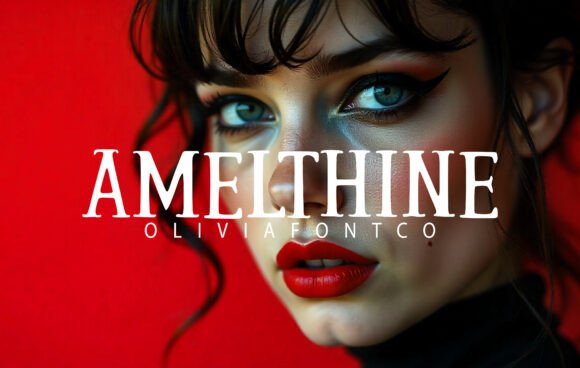
The Amelthine Font: Elevate Your Designs with Elegance and Sophistication
I’ll never forget the time I was working on a luxury branding project for a high-end fashion client. I had spent hours pouring over design concepts, but something was missing – the perfect font. That’s when I stumbled upon Amelthine, a sophisticated and confident serif typeface that instantly elevated my design game. In this article, I’ll share my experience with Amelthine, its features, and how to make the most of this stunning font in your designs.
What Makes Amelthine Special?
Amelthine strikes the perfect balance between classic elegance and modern allure. Its high contrast between thick and thin strokes, sharp serifs, and refined details make it perfect for high-end branding, fashion magazine layouts, editorial design, and striking headlines that demand attention.
An Honest Review of Amelthine
- ✨ Elegant and sophisticated design: Amelthine exudes luxury and refinement, making it perfect for high-end projects.
- ✅ High contrast and sharp serifs: The font’s high contrast between thick and thin strokes, combined with its sharp serifs, creates a visually stunning effect.
- 💡 Versatile and adaptable: Amelthine works beautifully in various design contexts, from fashion magazines to editorial design and branding.
While Amelthine is an exceptional font, there are a few things to keep in mind:
- 🤔 Legibility at small sizes: Due to its high contrast and delicate features, Amelthine may not be the best choice for body text at small font sizes.
- ⚠️ Overuse can be overwhelming: As with any bold font, using Amelthine excessively can be overwhelming. Balance it with simpler fonts to create visual harmony.
A Practical Guide to Using Amelthine
If you’re looking for fonts similar to Amelthine, consider the following options:
- Playfair Display: A luxurious and elegant font perfect for high-end branding and editorial design.
- Lorakeit: A sophisticated serif font with a similar feel to Amelthine, ideal for fashion and lifestyle projects.
- Didot: A classic serif font with a refined and elegant design, suitable for luxury branding and editorial design.
- Bodoni: A sleek and sophisticated font with a strong, modern aesthetic, perfect for fashion and lifestyle projects.
The Story Behind Amelthine
Amelthine was designed with the goal of creating a font that embodies both classic elegance and modern sophistication. Its creator drew inspiration from traditional serif fonts, refining and updating them to meet the demands of modern design. The result is a font that exudes luxury, refinement, and confidence.
Q: What is Amelthine best suited for?
A: Amelthine is perfect for high-end branding, fashion magazine layouts, editorial design, and striking headlines that demand attention.
Q: Can I use Amelthine for body text?
A: While Amelthine is an exceptional font, it may not be the best choice for body text at small font sizes due to its high contrast and delicate features.
Q: Is Amelthine a versatile font?
A: Yes, Amelthine is a versatile font that works beautifully in various design contexts, from fashion magazines to editorial design and branding.